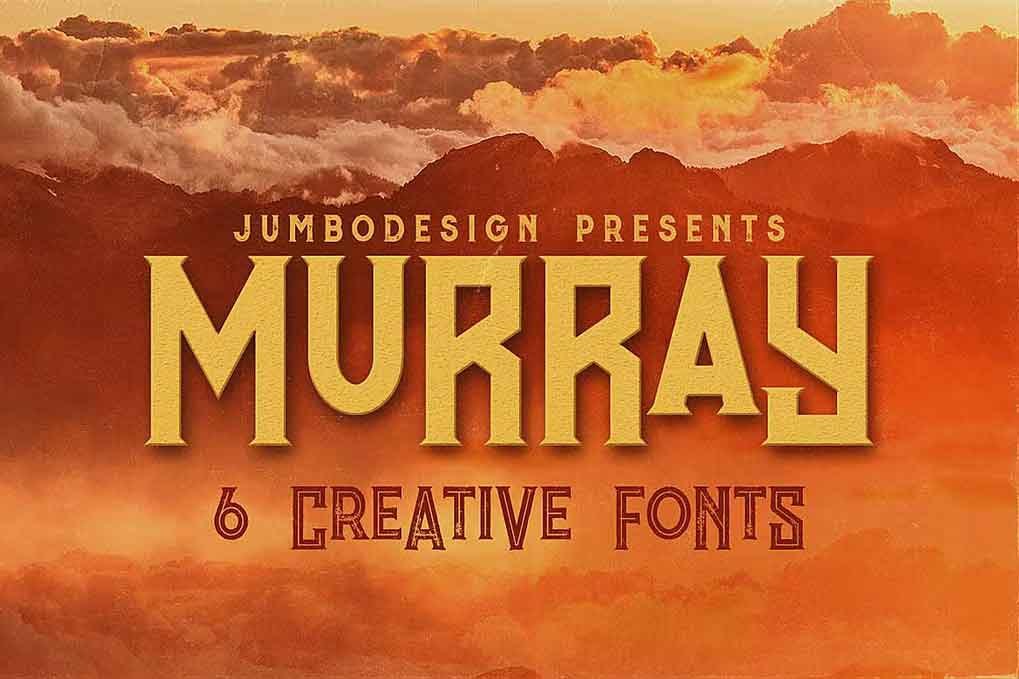
Murray Vintage Style Font
Unique retro or modern style custom font with 6 styles: regular and grunge, inline and inline grunge, outline and outline grunge.
Where Murray Vintage Style Font works best
Reports, white papers and book interiors hold the eye longer when the text face has real serifs; Murray Vintage Style Font keeps that rhythm without looking old-fashioned.
Food, spirits and cosmetics brands lean on serif wordmarks to suggest age and care. Murray Vintage Style Font gives that signal at wordmark size.
Set Murray Vintage Style Font for the body of an award or a diploma and keep the recipient name in a script; the pairing is what makes a document feel official.
What kind of work does Murray Vintage Style Font suit?
It sits in the Serif Fonts group and reads as modern, retro, serif, serif fonts. That makes it a candidate wherever those qualities help: headings, packaging, social graphics and brand work. Set it at the size you plan to use before deciding.